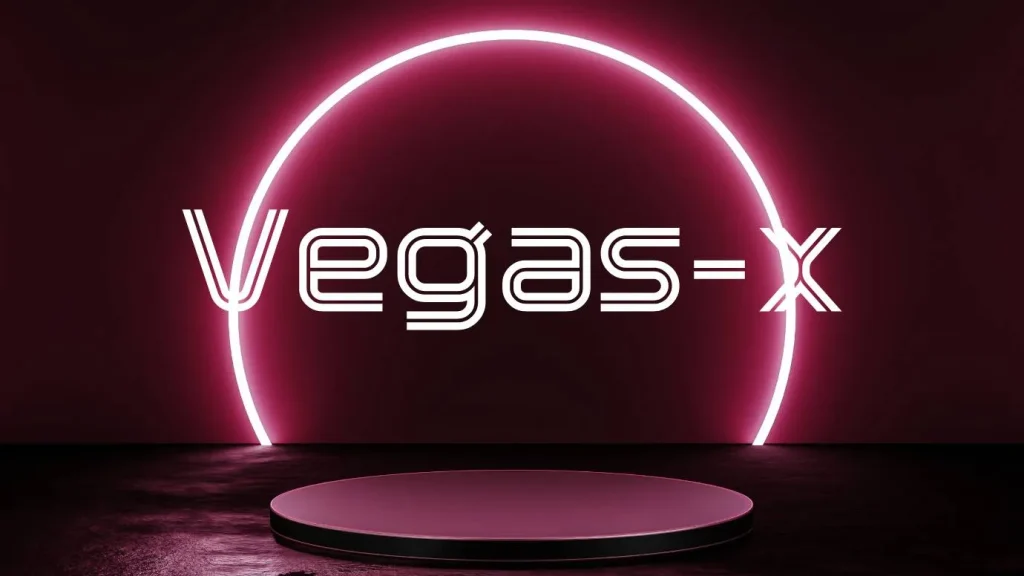
It is an exceptionally smooth and clear typeface. This typeface has both lowercase characters and capitalized characters and a huge number of ligatures. With
XdCreative created this typeface it is a great choice for those who are searching for a classic fancy textual style. This typeface is best suited for body content, headings, and captions.
It is an exceptionally smooth and clear typeface. This typeface has both lowercase characters and capitalized characters and a huge number of ligatures. With this style, you can create unique content easily. You can use this style on Canva to create interesting and unique designs.
Many creators pair this typeface with oklahoma font styles to improve the excellence of your project. The following section contains a preview in which 31 special characters, 26 letters of the alphabet, and a numbering system from 0 to 10 are selected for creating new designs.
What Are the Qualities of Vegas- x Font?
Advantages of Using Vegas- x Font
You can use the typeface for creating graphic designs, movie animations, and more. This style is a great choice for those who want to make new and trendy designs for their project.
This typeface is creative and unique and has perfect for design creating any project. This typeface is ideal for creating logos, branding designs, magazines, websites, and much more.
The unique style is created by XdCreative it is a unique and attractive font that can create interesting designs.